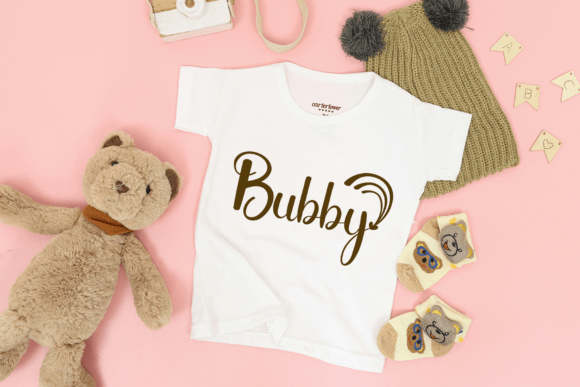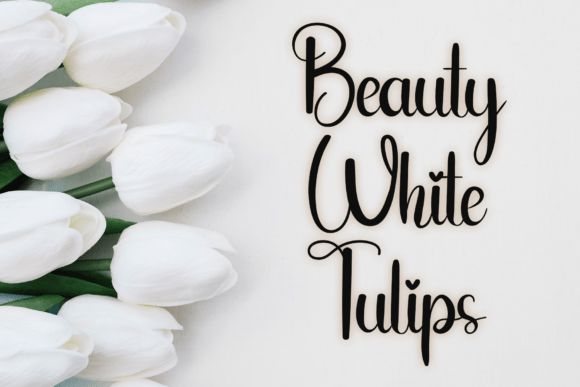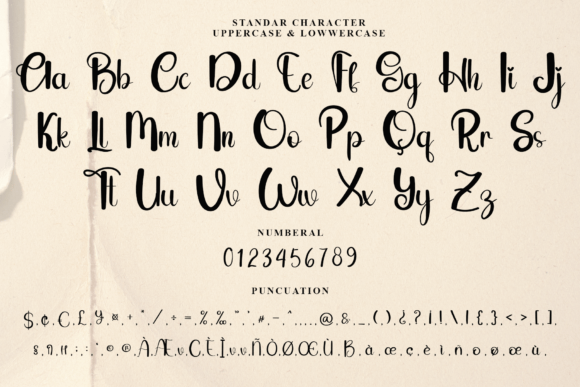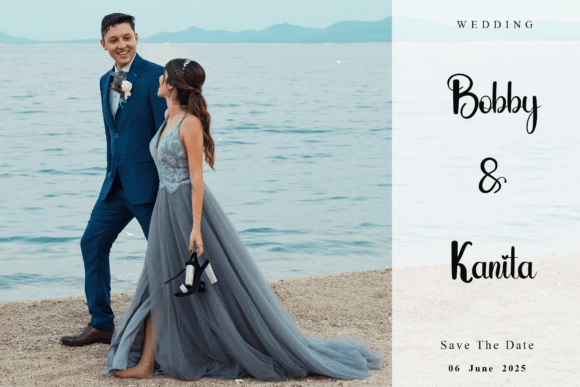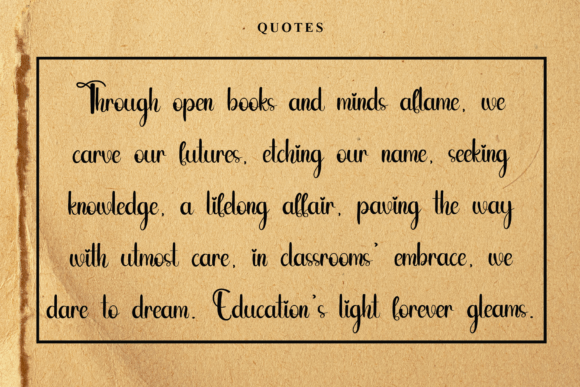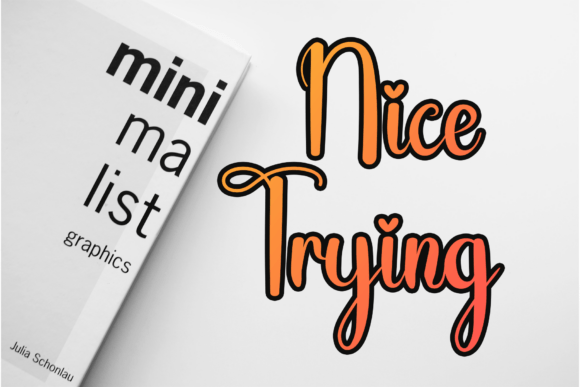
Have you ever stumbled upon a beautiful, handwritten font that made you smile? For designers, that moment is like finding a hidden treasure – it’s a game-changer. The “Fancy Font” is one such treasure that will transport your designs from ordinary to extraordinary. This sweet and cursive font is perfect for adding a joyful and romantic touch to your projects.
Whether you’re working on branding, logos, wedding invitations, or greeting cards, the Fancy Font is an excellent choice. Its elegant yet casual vibe makes it versatile and easy to use. As a designer, you’ll appreciate the value it adds to your work, elevating it from mere functionality to a beautiful piece of art. With the Fancy Font, you can create designs that are both sophisticated and approachable, making it a valuable addition to your design toolkit.
Fancy Font Key Features
- Unique Characteristics: Features a unique blend of modern and vintage elements, with intricate details and flourishes, making it perfect for creative and design-focused projects.
- Kerning and Ligatures: Includes advanced kerning and ligature support for precise typographic control and a professional look.
Fancy Font Review
I was excited to dive into Fancy Font, a new font design that promises to elevate any project. Overall, I found it to be a solid addition to my design toolkit, but with some limitations.
- Unique Character**: Fancy Font offers a distinct, elegant feel that sets it apart from more common fonts.
- High Legibility**: The font’s design ensures that text is clear and easy to read, even at smaller sizes.
- Good for Titles**: Fancy Font’s flair makes it perfect for use in titles, headings, and other prominent text elements.
- Not Ideal for Body Text**: While Fancy Font is great for titles, it may be too ornate for body text, which can make reading difficult.
- Some Platforms May Not Support**: Fancy Font may not render correctly on certain platforms or devices, which can lead to inconsistent design.
Overall, I’m pleased with Fancy Font’s performance, but I would caution designers to use it judiciously, reserving it for specific use cases where its unique flair will shine. With some careful application, Fancy Font can be a valuable addition to any design project.
Tips for Getting the Most Out of Fancy Font
Experiment with different font sizes, colors, and styles to create visually appealing designs. Use Fancy Font to add emphasis to key messages or to create a unique brand identity. Be mindful of font readability and use it sparingly to avoid overwhelming the design.
Fancy Font is perfect for creating eye-catching headings, titles, and logos. It’s also great for adding a touch of elegance to wedding invitations, business cards, and other formal documents. Use it to create a memorable brand identity or to make a lasting impression on your audience.